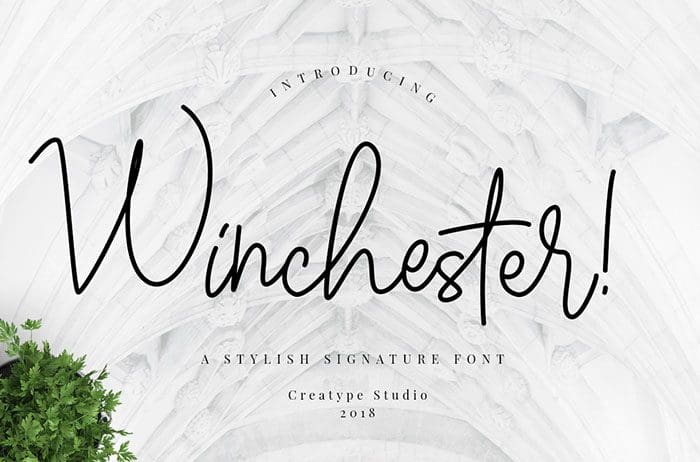
Winchester Signature Font
Winchester signature font which stylish natural handwritten font with a beautiful curve in every single corner. Winchester is perfect for photography, watermark, social media posts, advertisements, logos & branding, invitation, product designs, label, stationery, wedding designs, product packaging, special events, or anything that need handwriting taste. Thanks to Creatype Studio for sharing this font! Take a look at this portfolio for more of his stunning fonts.